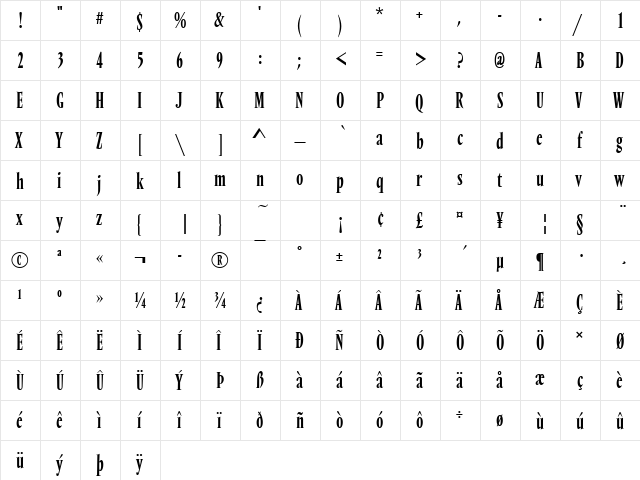
VendomeTRegCon Regular
Design Context for VendomeTRegCon Typeface
VendomeTRegCon takes a measured approach to typography — its balanced proportions and neutral character make it a reliable workhorse for both digital and print work.